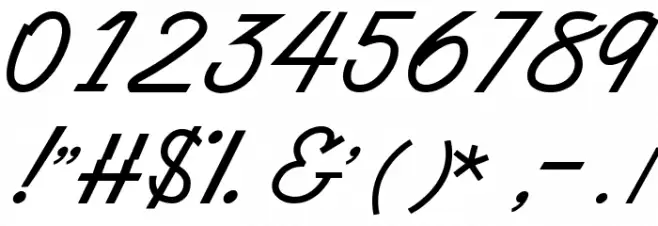
United Stay Font
United Stay Description
This font features a flowing, cursive style with elegant loops and swashes, giving it a sophisticated and artistic appearance. The uppercase letters are particularly ornate, with intricate connections and flourishes that add a sense of movement and grace. The lowercase letters maintain a consistent flow, complementing the uppercase with their smooth, rounded forms. The numerals are clear and stylish, matching the overall aesthetic with slight slants and curves. Special characters are designed with the same attention to detail, ensuring a cohesive look across all glyphs. This font is ideal for projects that require a touch of elegance and creativity.
A cursive, flowing font with elegant loops and swashes from Uncategorized fonts.
- Proposed Projects: Ideal for wedding invitations, elegant branding, artistic posters, and decorative signage.
- Use Case: Logos, Invitations, Decorative Text